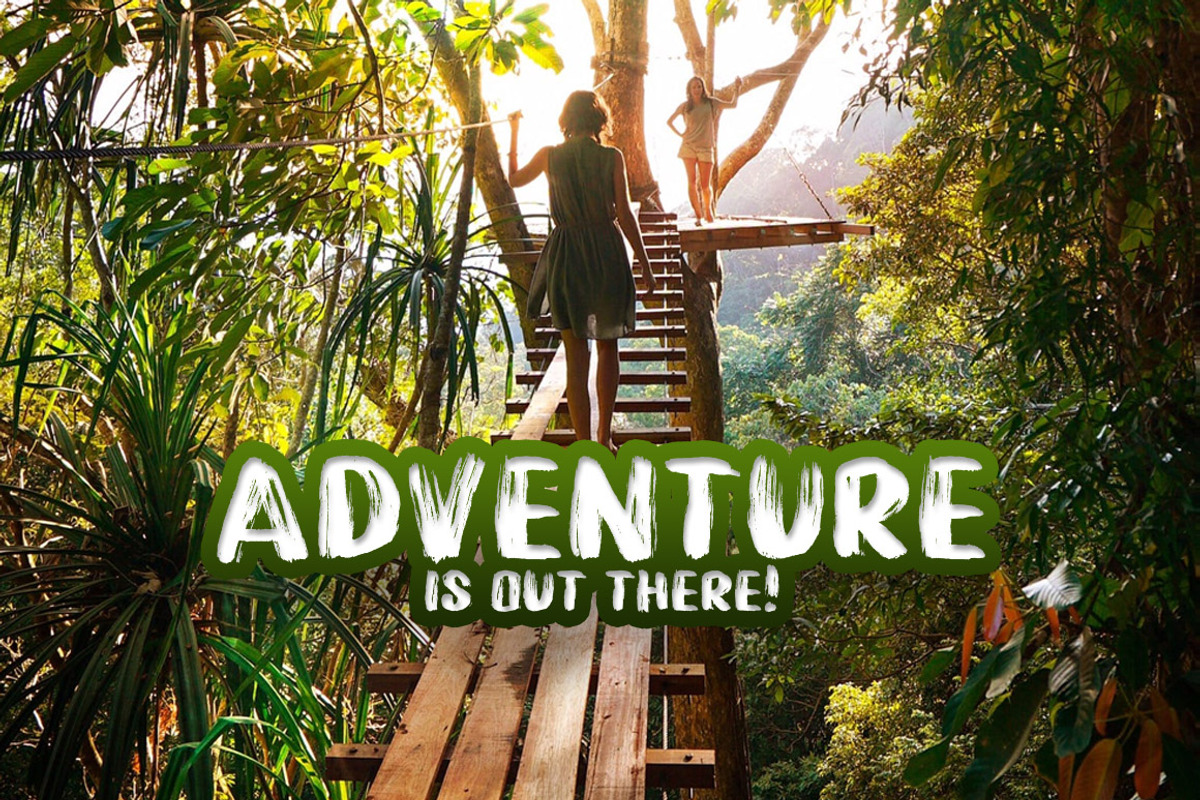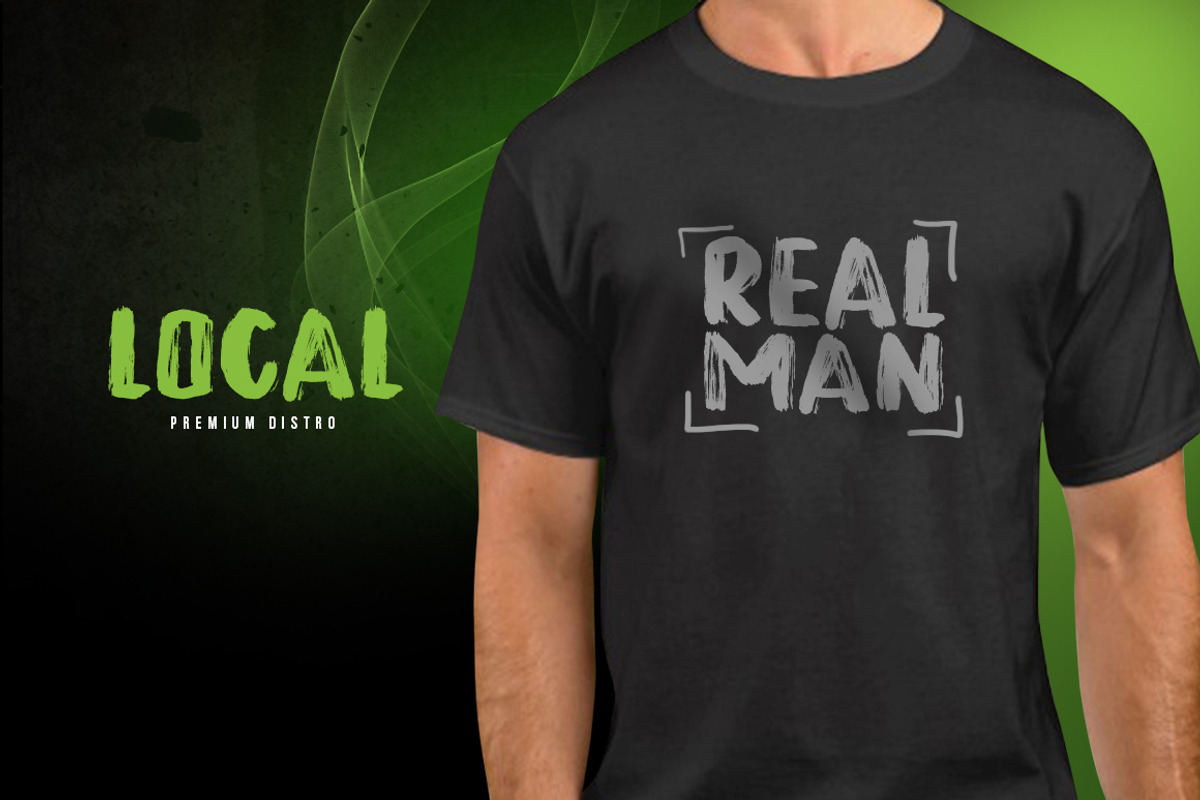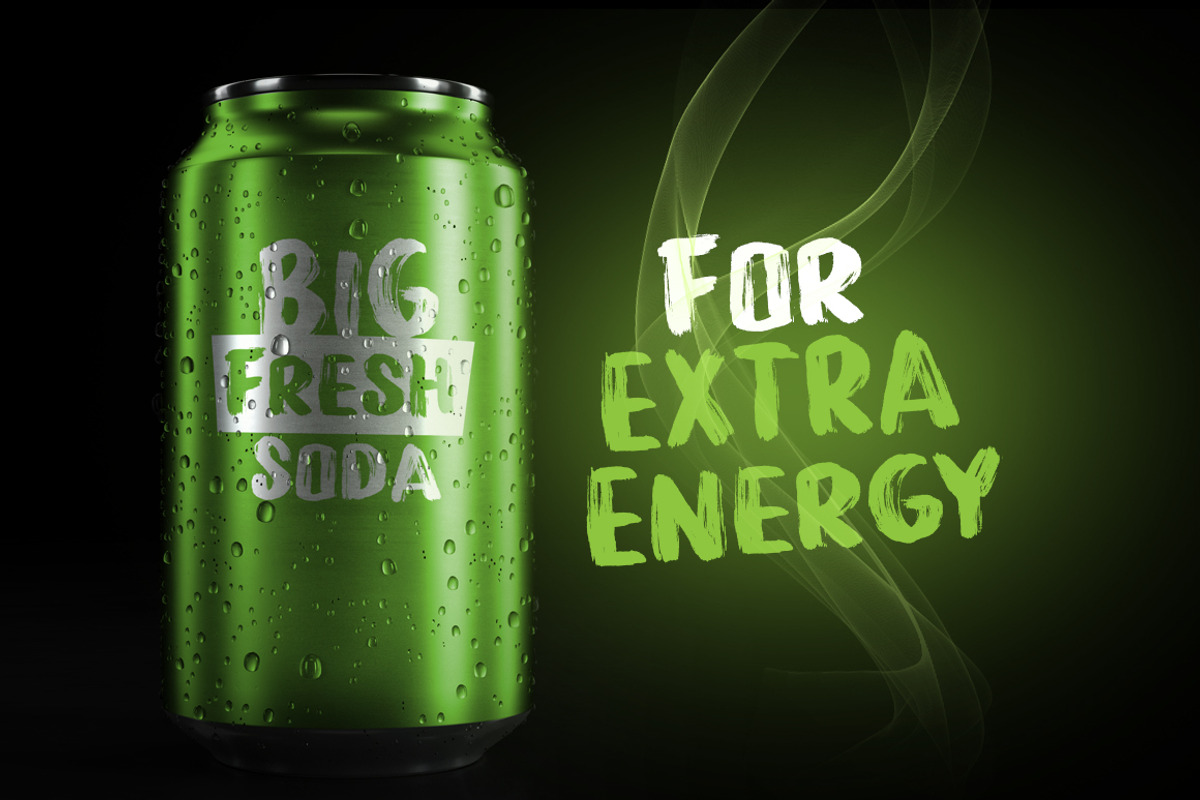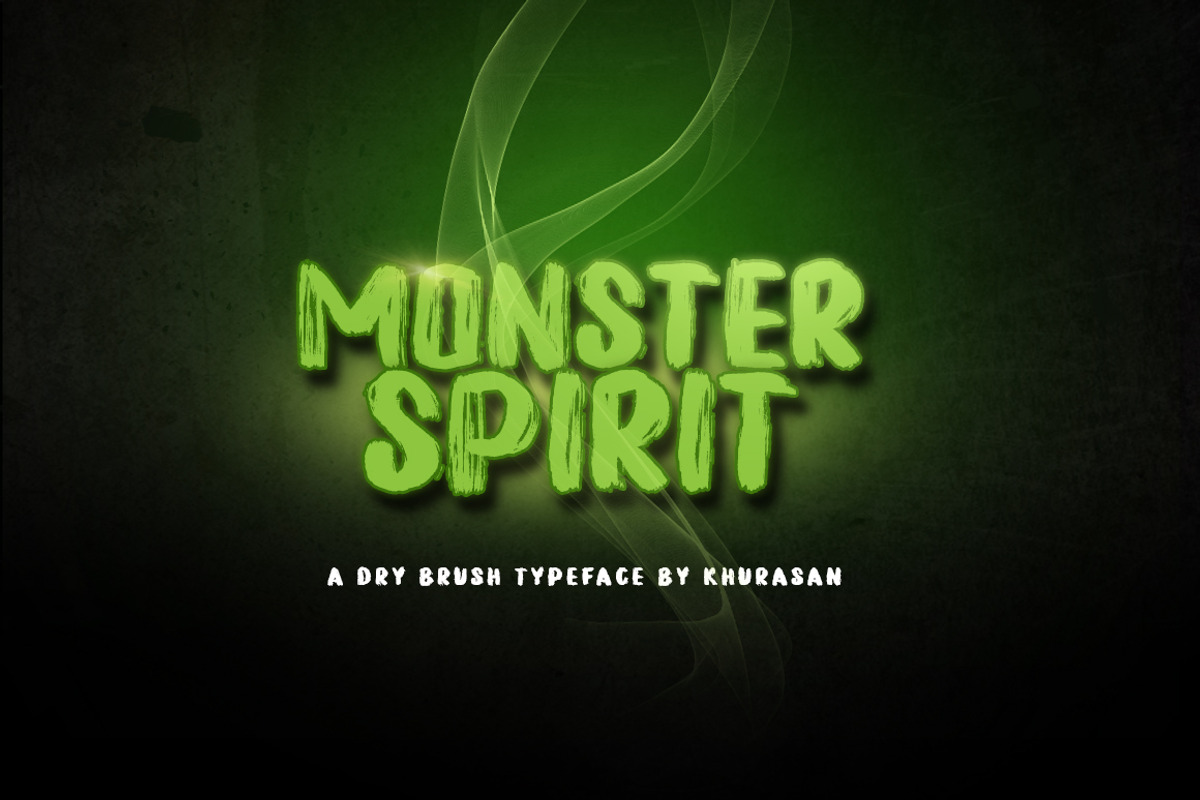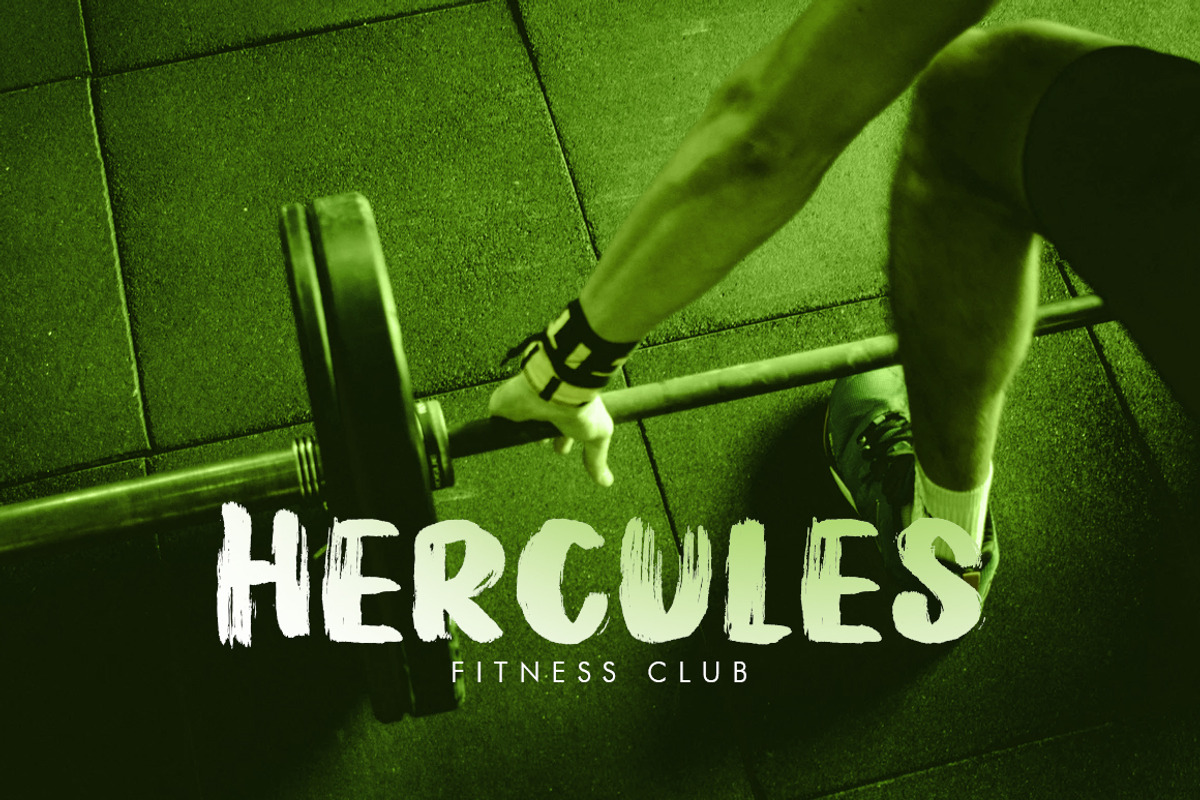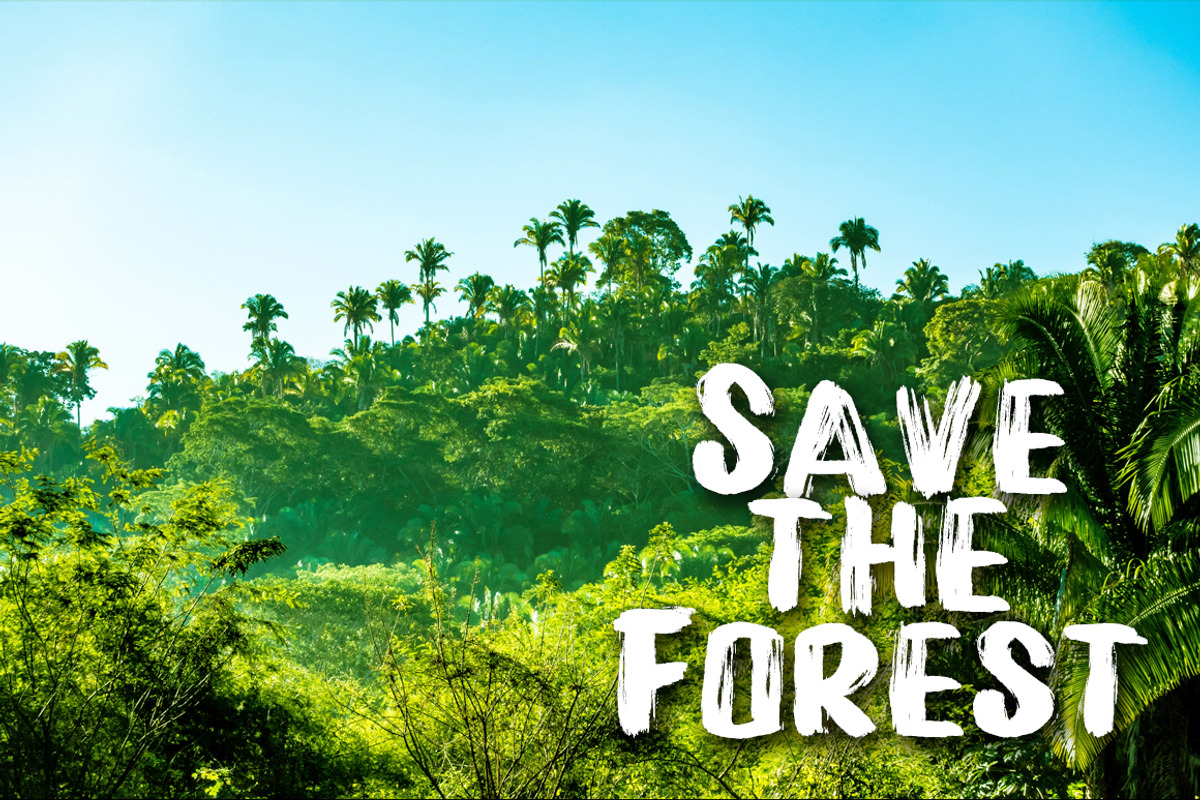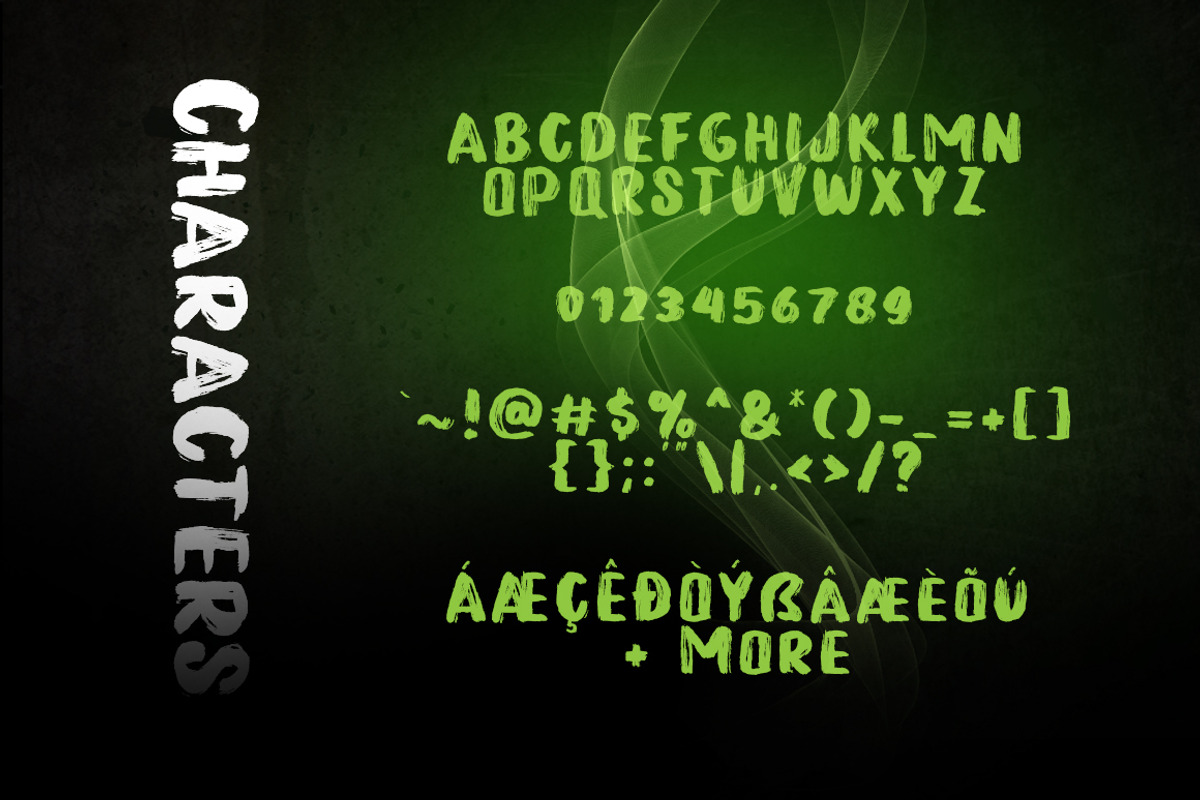
Monster Spirit Brush Font
Introducing Monster Spirit is a fresh handwritten font brush, elegant and vintage feel character set. Tracking font as well as multi-lingual support, currency figures, numerals, & punctuation.
- Tracking font as well as multi-lingual support, currency figures, numerals, & punctuation.
Why Monster Spirit Brush Font is worth a look
Monster Spirit Brush Font by khurasan fits naturally into Branding, posters, packaging, typography.